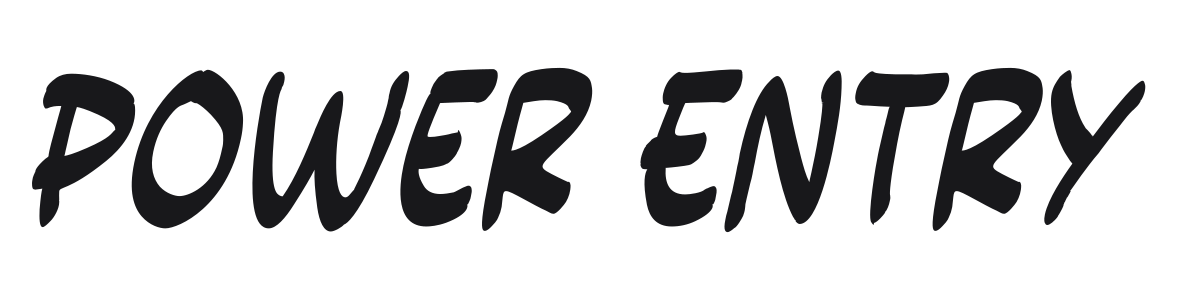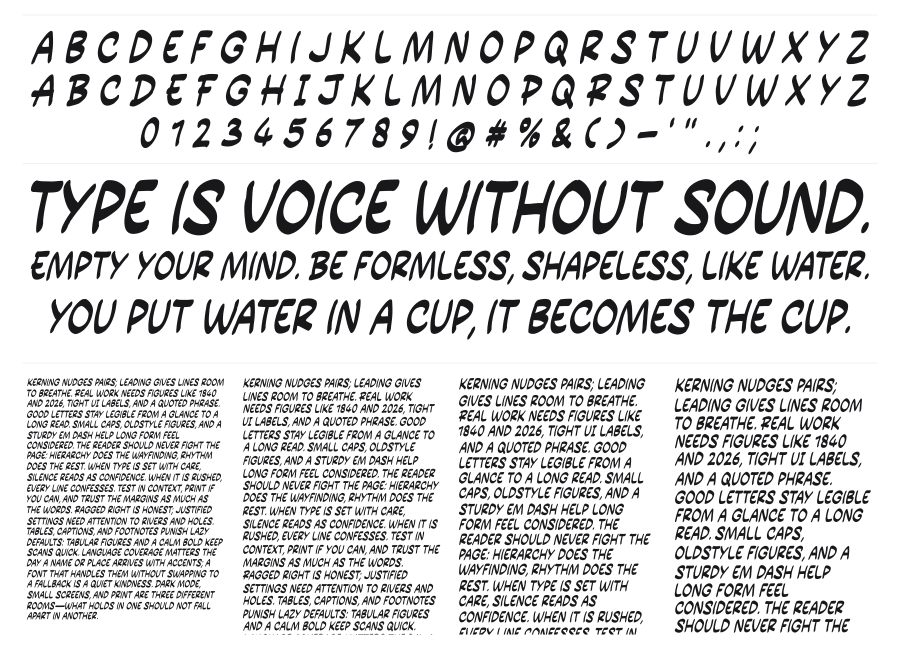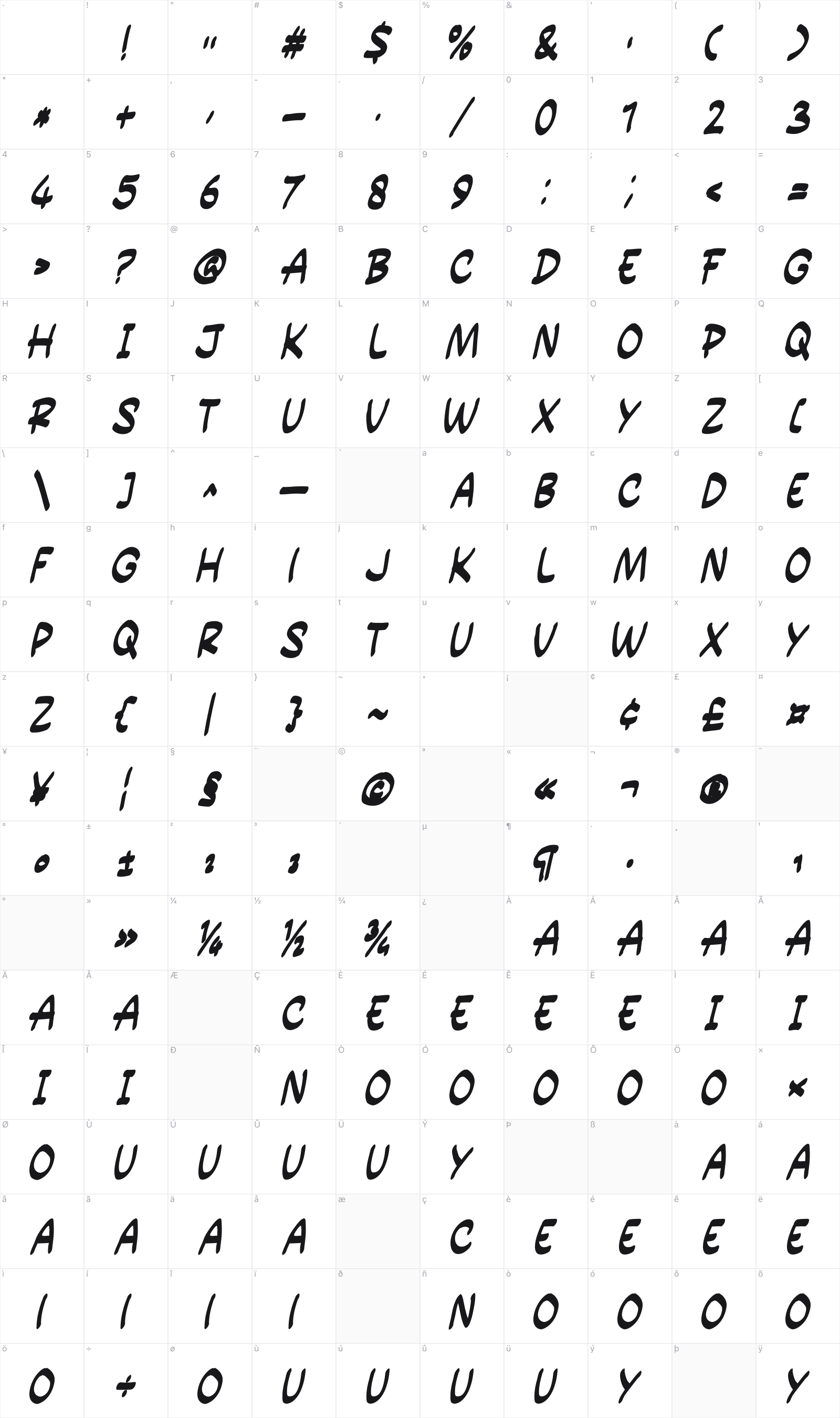
Power Entry
Power Entry is a heavy italic display font with the raw energy of comic-book hand lettering. Thick, rounded strokes and an aggressive rightward slant give it unstoppable forward momentum. It works best big, on posters, game titles, or anything that needs to feel like it's moving.